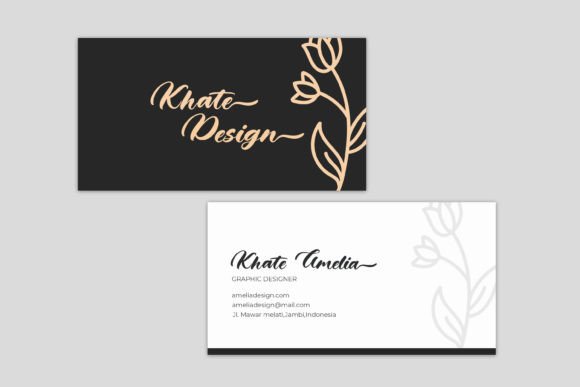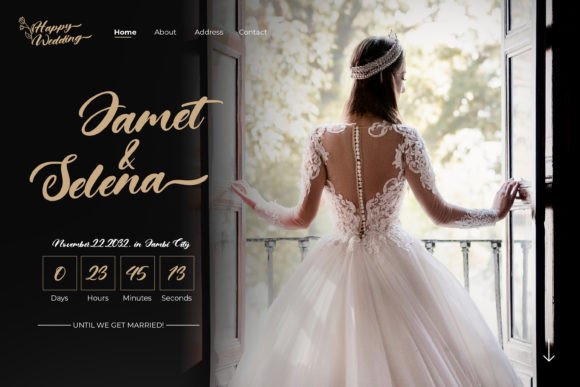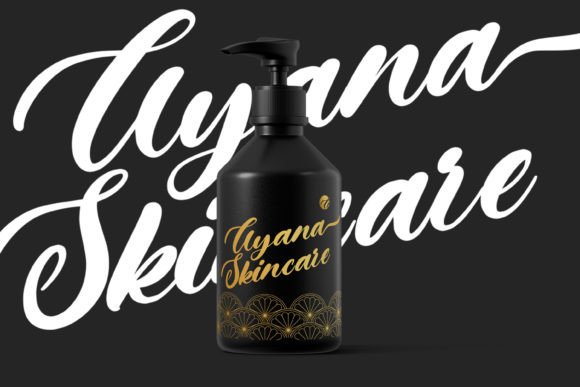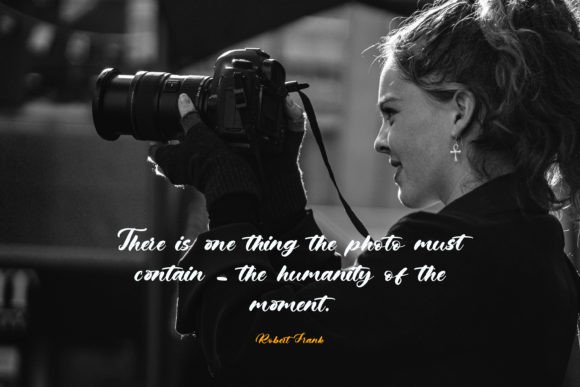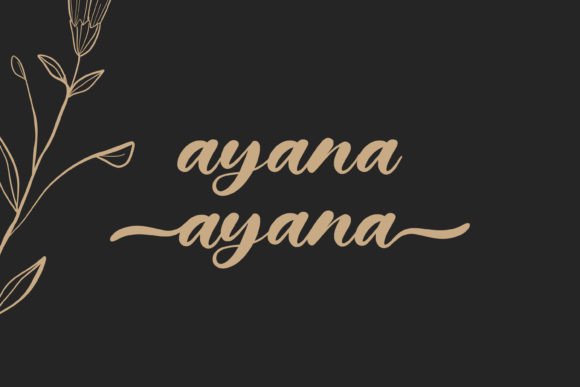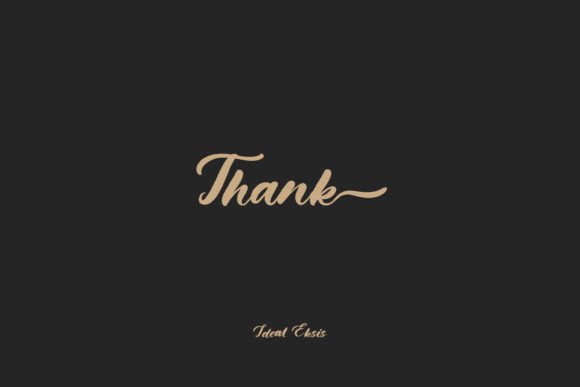
Ayana Script Font: Elevate Your Designs with Elegance and Modernity
In the world of typography, a font can make or break a design project. With the right font, you can convey your message with style and sophistication. Introducing Ayana Script Font, a harmonious blend of elegance and modernity that can elevate a wide range of design projects. In this article, we’ll explore the features and benefits of Ayana Script Font, and why it’s a must-have for designers and crafters.
Ayana Script: A Versatile Typeface
Ayana Script Font is a versatile typeface that boasts a graceful and contemporary design. Its elegant curves and lines make it perfect for projects that require a touch of sophistication. Whether you’re designing a logo, branding materials, or marketing collateral, Ayana Script Font is the perfect choice. Its modern design ensures that your project looks fresh and up-to-date, while its elegant features add a touch of refinement.
One of the standout features of Ayana Script Font is its PUA (Private Use Area) encoding. This means that you can access all the amazing glyphs and ligatures with ease. PUA encoding allows you to use the font’s advanced features, such as swashes, stylistic alternates, and ligatures, without the need for complex software or technical expertise. With Ayana Script Font, you can simply select the glyphs and ligatures you want to use, and you’re good to go!
Ayana Script Font comes with a range of features and benefits that make it a must-have for designers and crafters. Some of the key features include:
- Elegant and modern design: Ayana Script Font boasts a beautiful, contemporary design that’s perfect for projects that require a touch of sophistication.
- PUA encoded: With PUA encoding, you can access all the amazing glyphs and ligatures with ease.
- Versatile: Ayana Script Font is suitable for a wide range of design projects, from logos and branding materials to marketing collateral and more.
- Easy to use: With its user-friendly design and PUA encoding, Ayana Script Font is easy to use, even for those with limited technical expertise.
Use Cases for Ayana Script Font
Ayana Script Font is a versatile typeface that can be used in a wide range of design projects. Here are some use cases to consider:
- Logo design: Ayana Script Font is perfect for creating elegant and modern logos that make a lasting impression.
- Branding materials: Use Ayana Script Font to create branding materials, such as business cards, letterheads, and envelopes, that reflect your brand’s personality and values.
- Marketing collateral: Ayana Script Font is suitable for marketing collateral, such as brochures, flyers, and posters, that require a touch of sophistication.
- Wedding and event design: Ayana Script Font is perfect for wedding and event design projects, such as invitations, programs, and place cards.
In conclusion, Ayana Script Font is a versatile typeface that embodies both elegance and modernity in a harmonious blend. With its PUA encoding and user-friendly design, it’s easy to use and accessible to designers and crafters of all levels. Whether you’re creating a logo, branding materials, or marketing collateral, Ayana Script Font is the perfect choice. So why wait? Download Ayana Script Font today and elevate your designs with elegance and modernity.
- Ayana Script Font is a versatile typeface that combines elegance and modernity.
- PUA encoding allows for easy access to glyphs and ligatures.
- Suitable for a wide range of design projects, from logos and branding materials to marketing collateral.
- Easy to use, even for those with limited technical expertise.